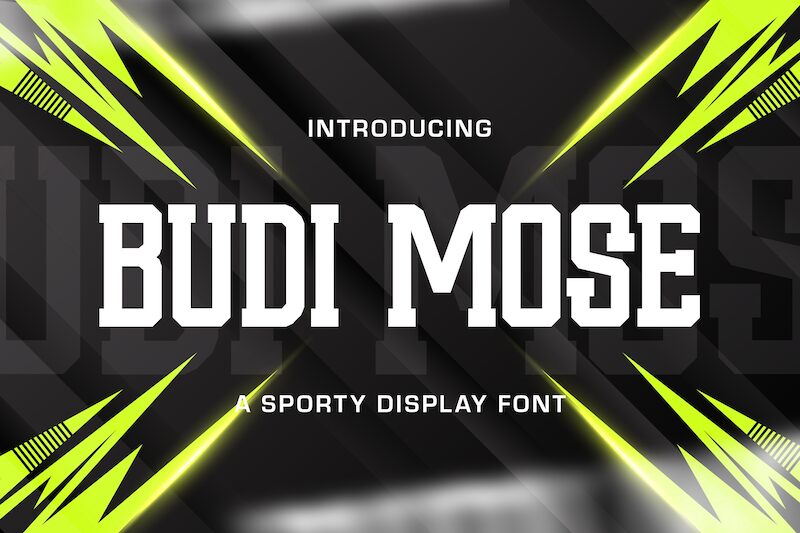
Budi Mose
Budi Mose font by StringLabs Creative Studio is a free old-school display font with a condensed width and an eye-catchy retro futuristic design. The geometric typeface has thick characters, irregular structures, and minimalist line widths. Light shapes fill negative spaces seamlessly in a compact manner to eventually form each letter in the geometric font.
Budi Mose is mainly excellent when used as body text for magazines, newspaper articles, posters, branding designs, websites, or corporate reports. Users can also employ the variable font for headlines on menus, books covers, advertisements and professional brochures and magazines.